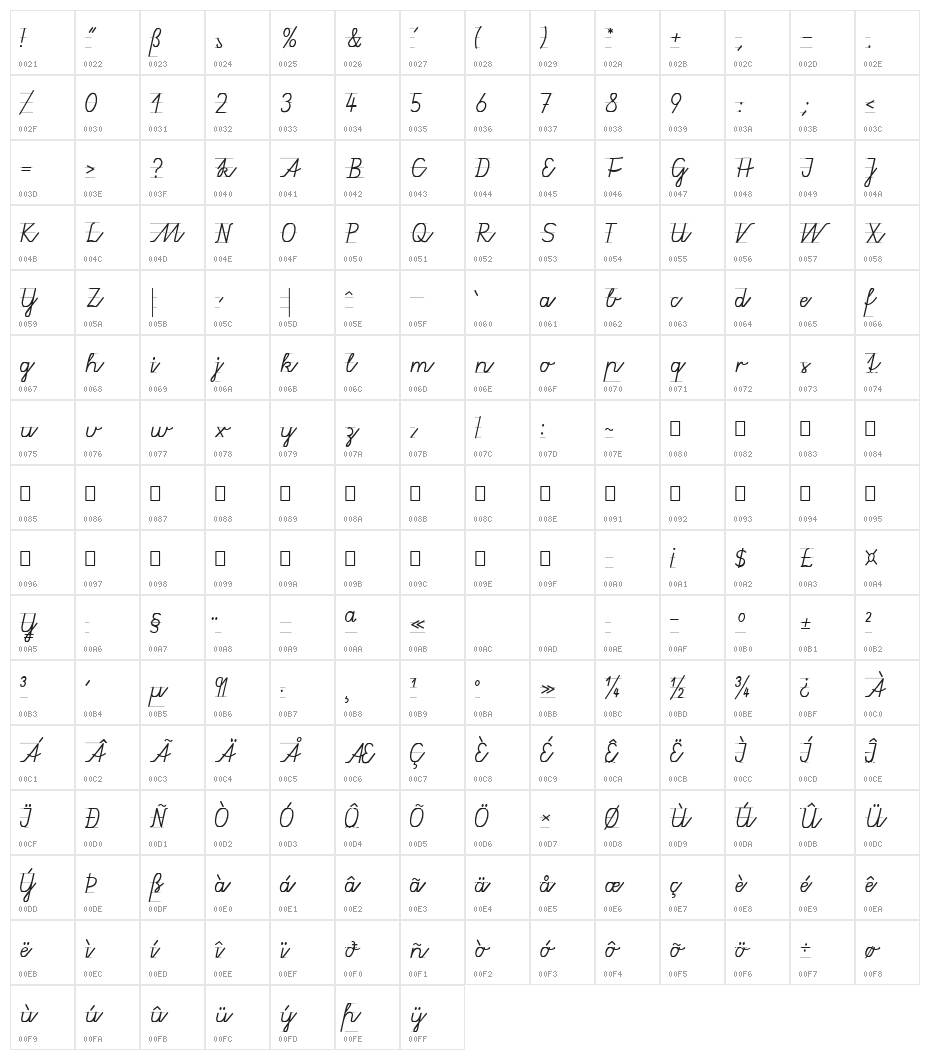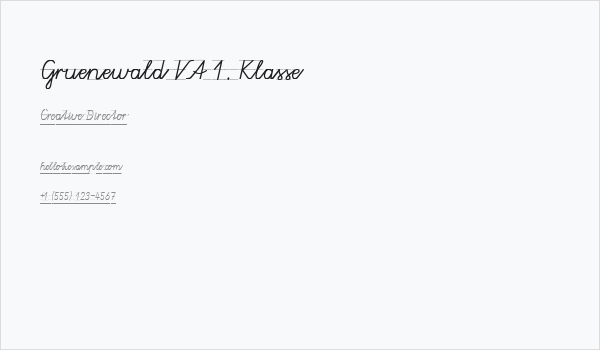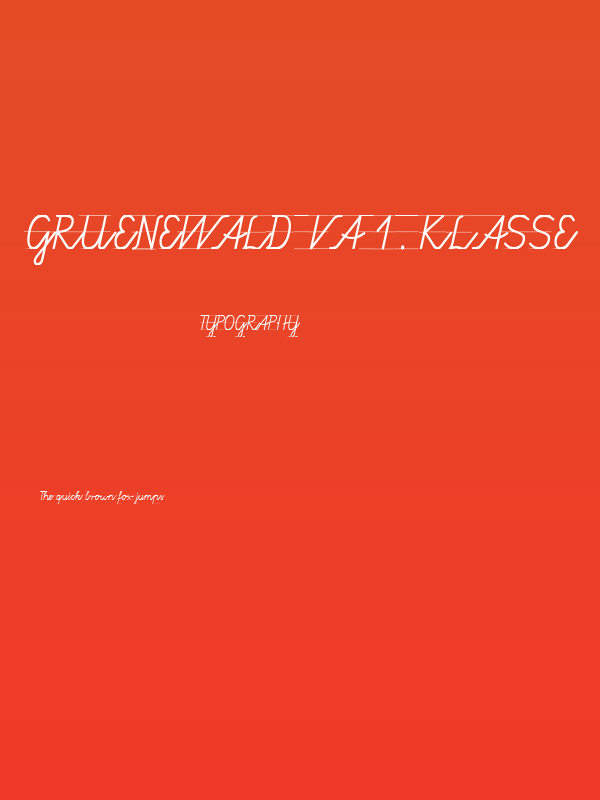
Gruenewald VA 1. Klasse Font
Gruenewald VA 1. Klasse Description
This elegant script font features a flowing, cursive style that mimics traditional handwriting. The letters are connected, creating a seamless and fluid appearance. The uppercase characters are slightly larger and more pronounced, while the lowercase letters maintain a consistent size and style. The numbers and special characters are designed to match the overall cursive aesthetic, ensuring a cohesive look across all text. The font's graceful curves and loops give it a sophisticated and classic feel, making it suitable for formal invitations, elegant branding, and decorative purposes.
| Use Case | Invitations, Branding, Decorative |
| Proposed Projects | Ideal for wedding invitations, elegant branding, personal stationery, and decorative projects. |